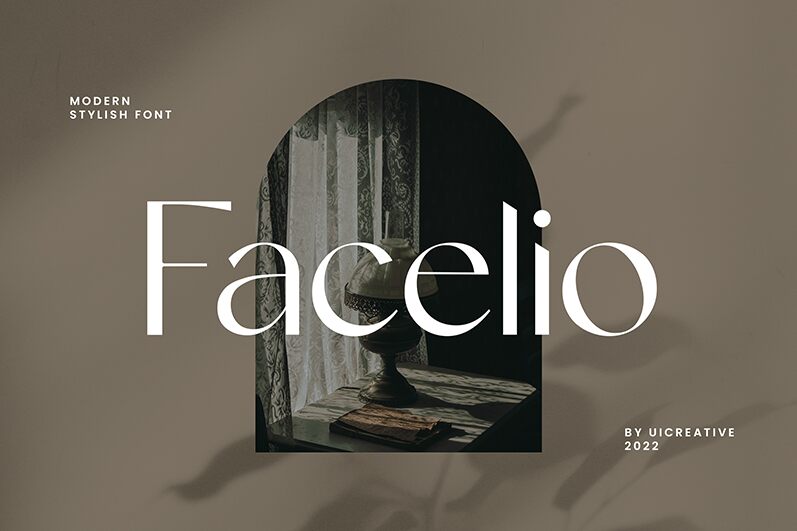
Facelio
Facelio by UI Creative is a sans serif font that exudes elegance and modernity. Its sleek, clean lines are juxtaposed with unique, slightly exaggerated curves that add a touch of sophistication to any design. The balance between its smooth, rounded characters and sharp edges creates an intriguing visual harmony.
Ideal for branding, Facelio’s distinct style makes it perfect for contemporary logos, high-end fashion magazines, and minimalist websites. Its versatility ensures readability while maintaining a chic aesthetic, making it suitable for both digital and print media. Facelio stands out not just as a typeface but as a statement in design innovation.